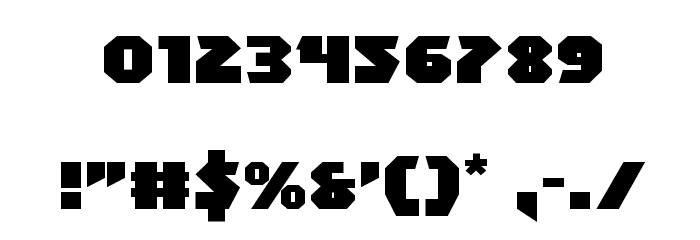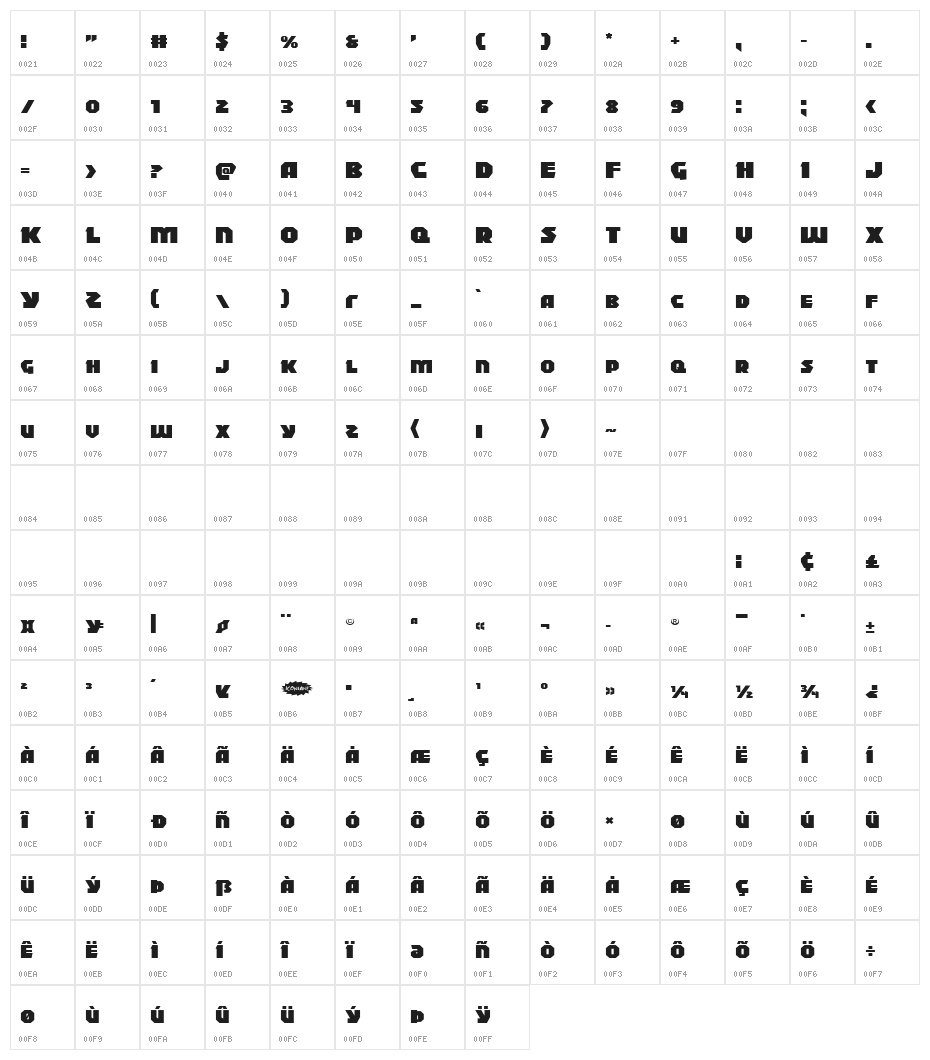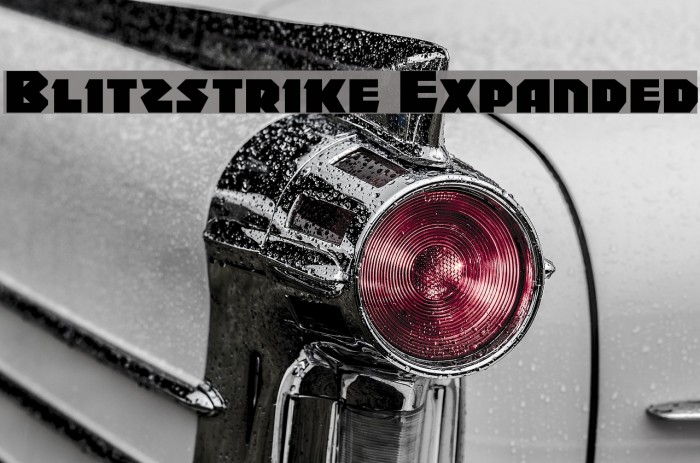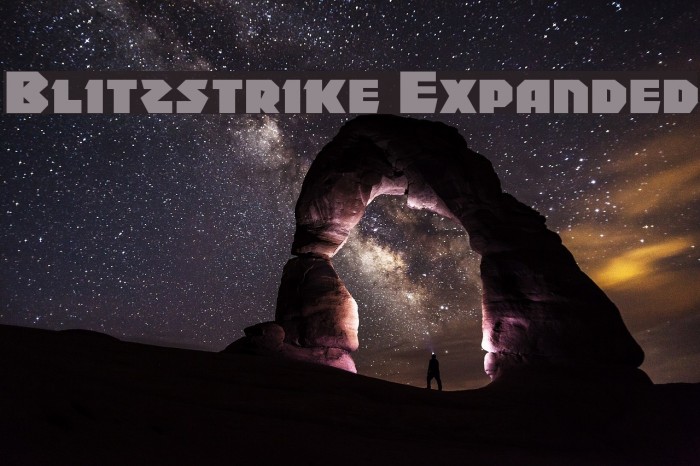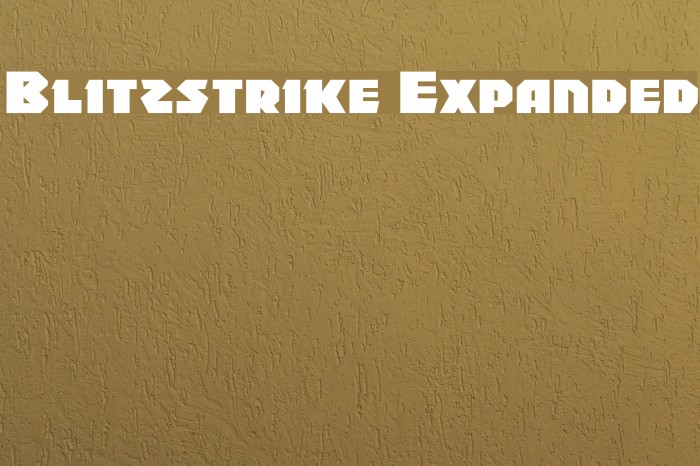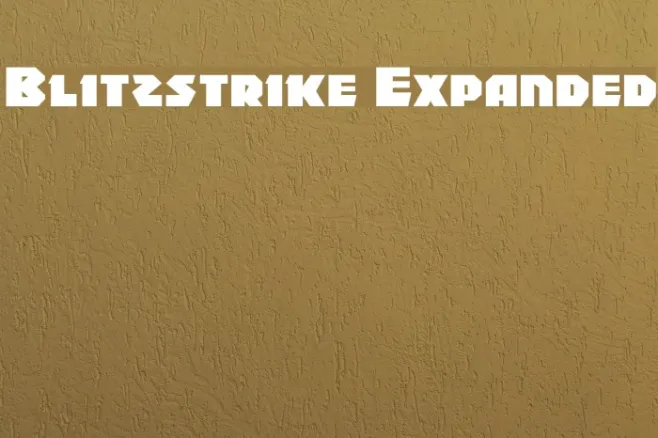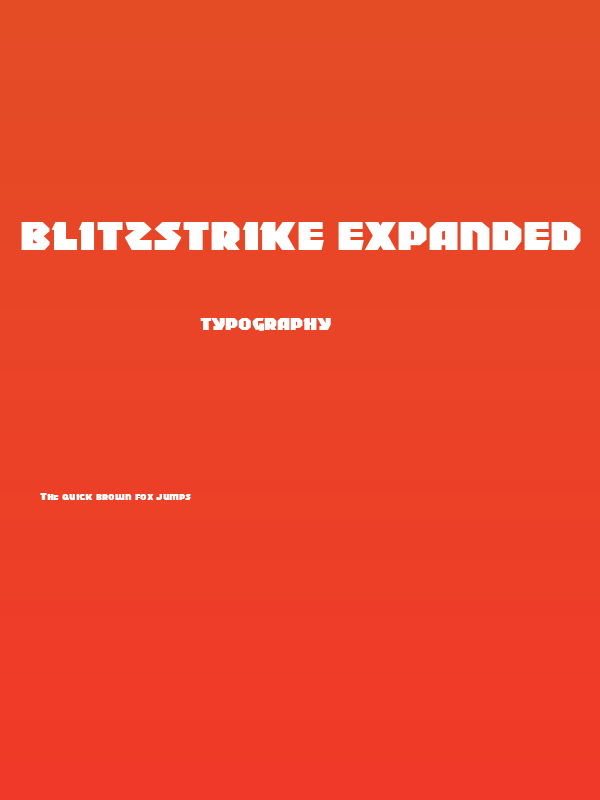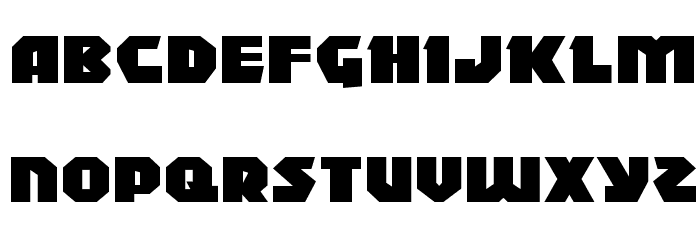
Blitzstrike Expanded Font
Blitzstrike Expanded Description
This font features a bold and angular design, characterized by its sharp edges and geometric shapes. The uppercase letters are particularly striking, with a blocky and robust appearance that commands attention. The lowercase letters maintain the same boldness, ensuring consistency throughout the typeface. Numbers and special characters are designed with the same angular style, making them easily recognizable and visually cohesive. The overall design is modern and impactful, suitable for projects that require a strong visual presence.